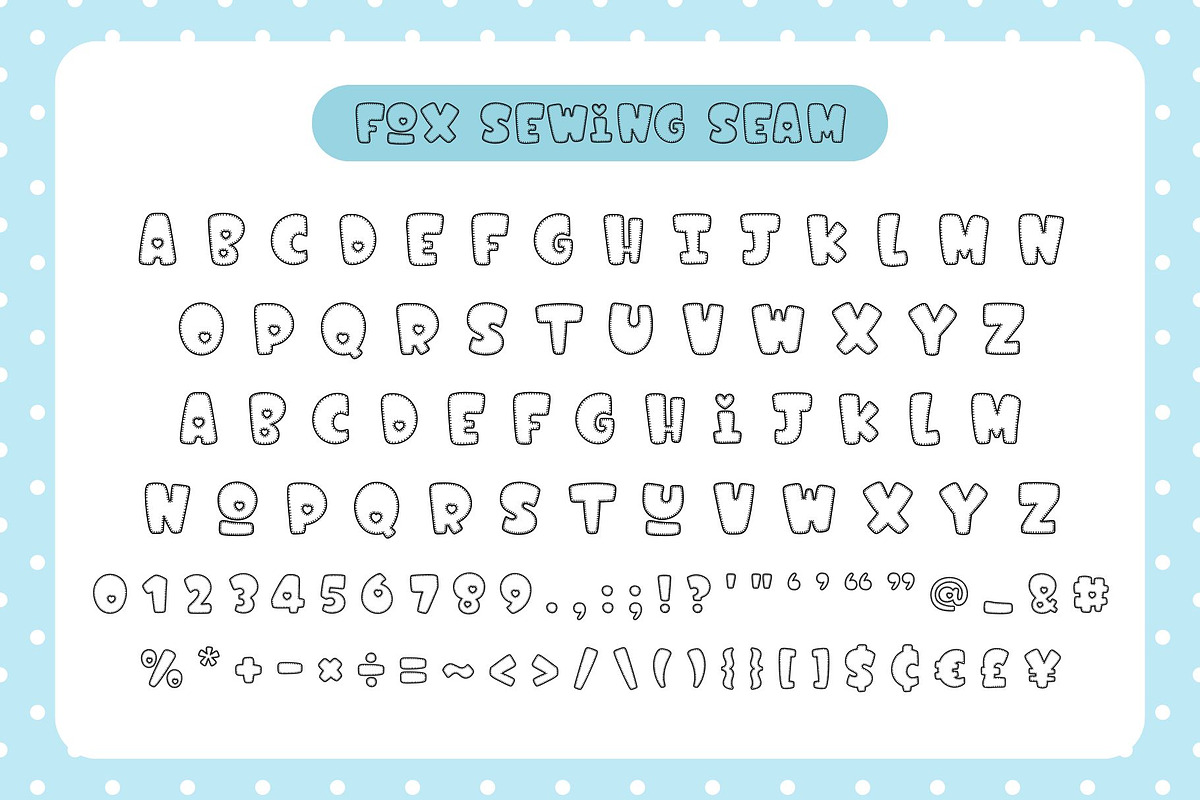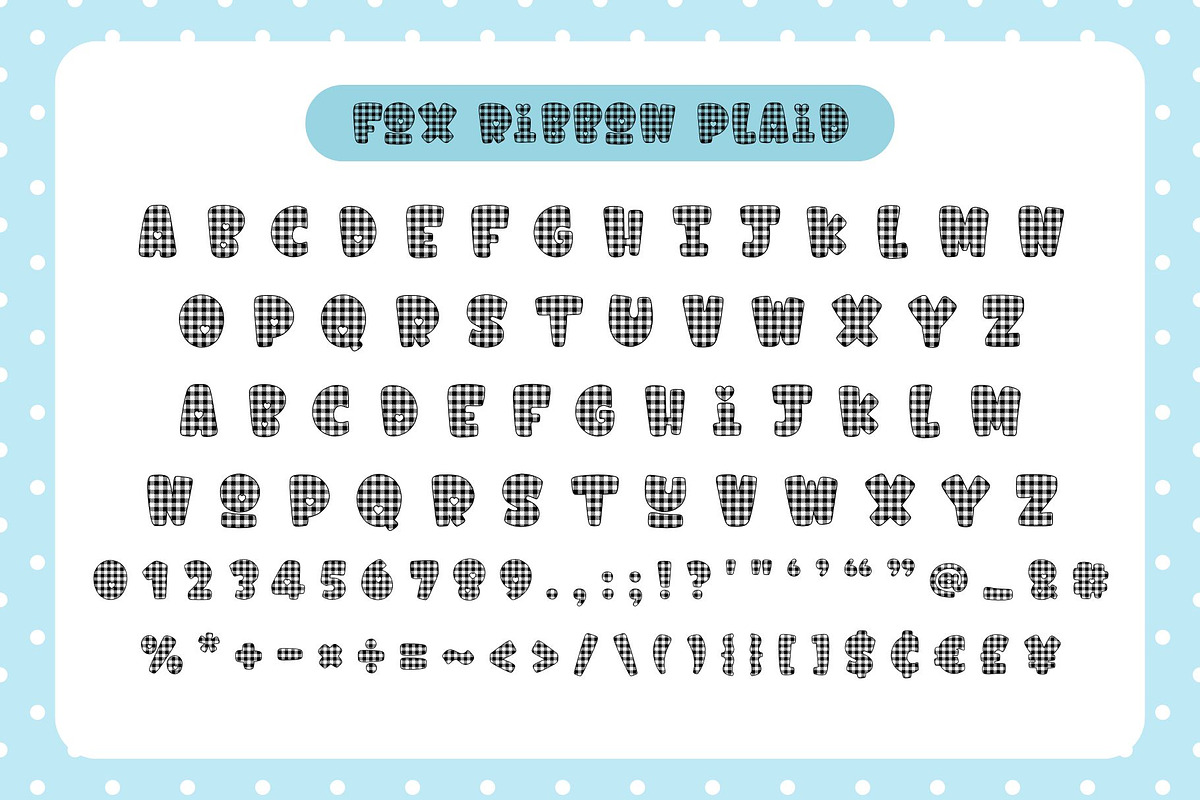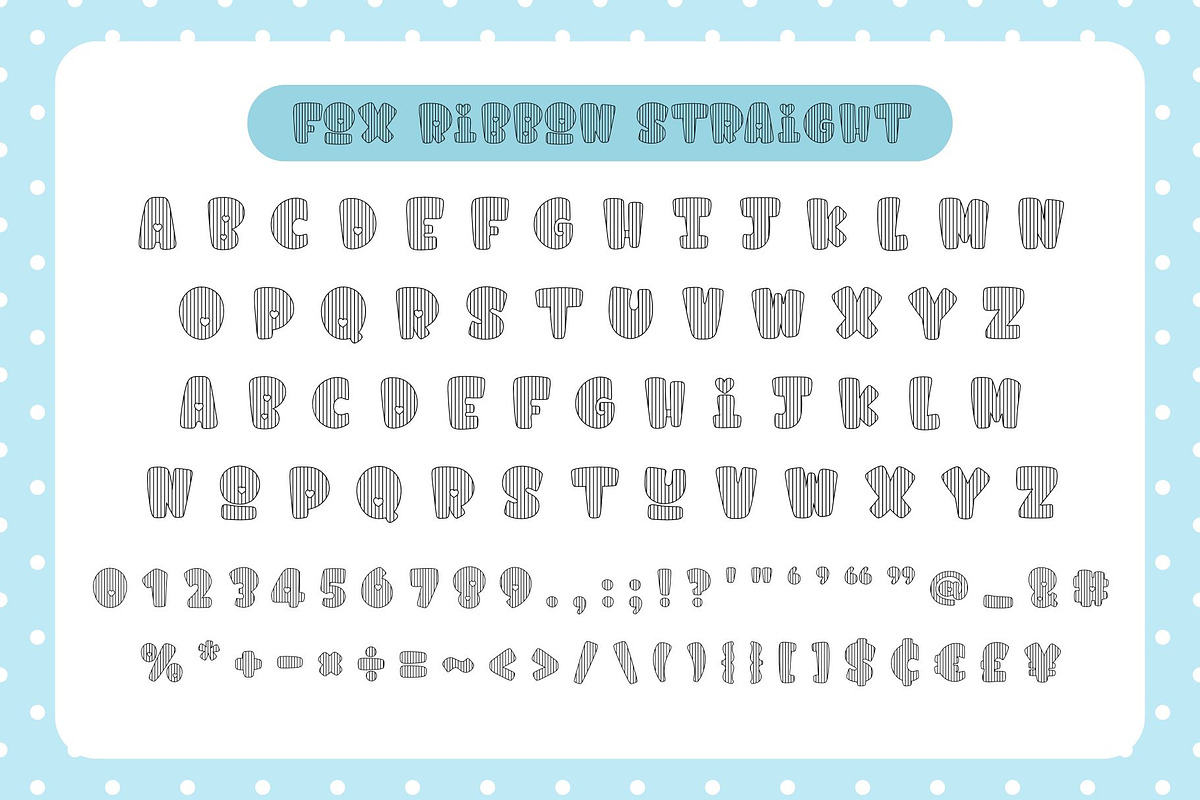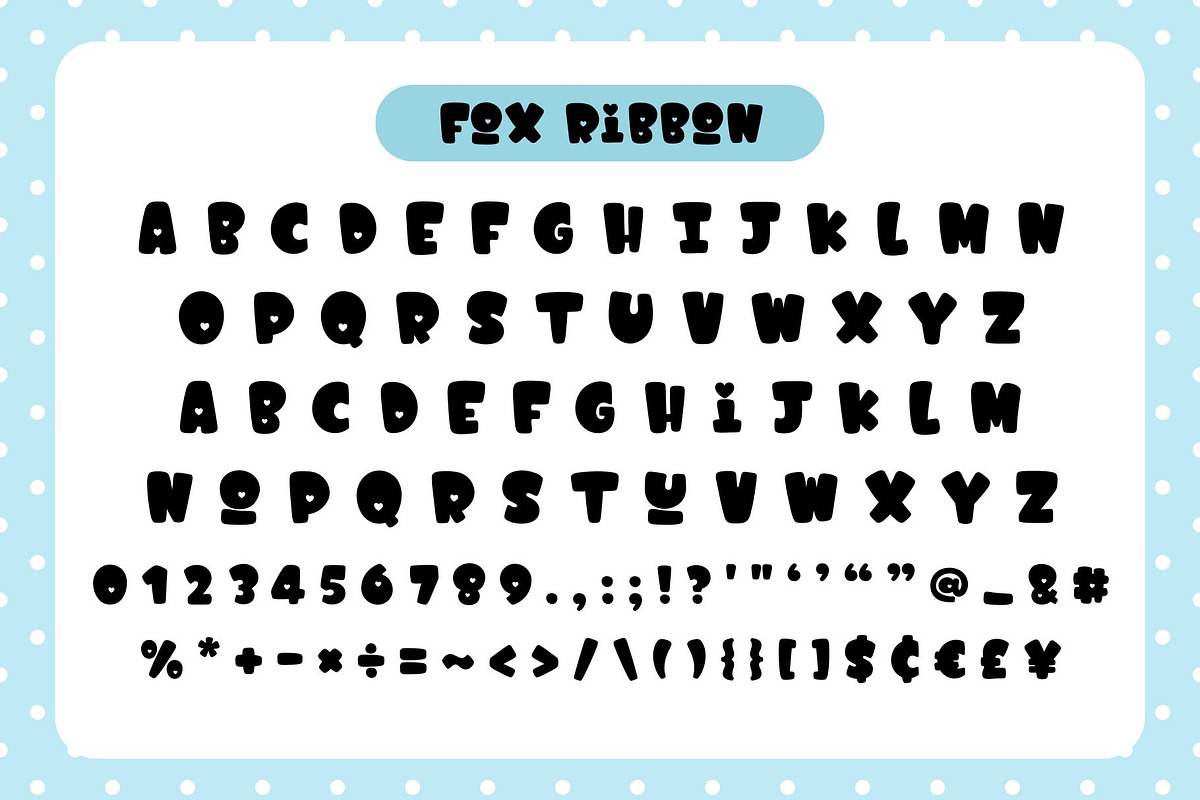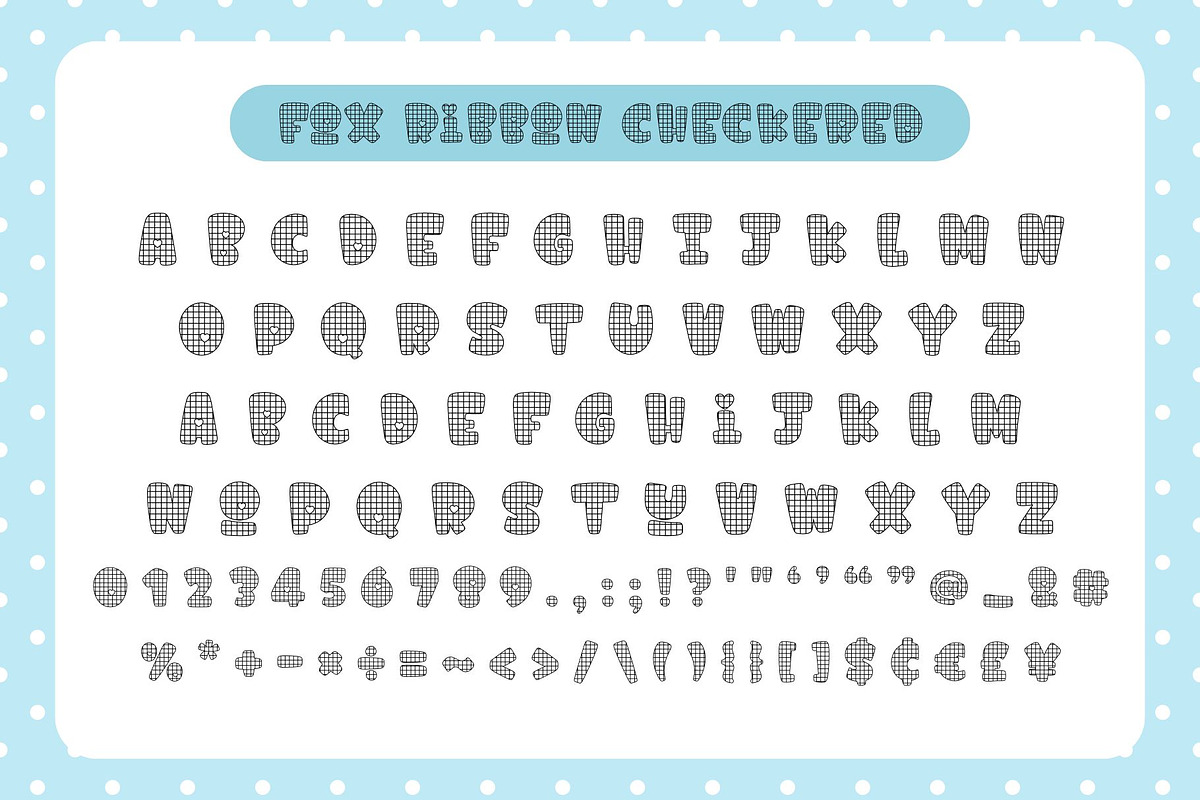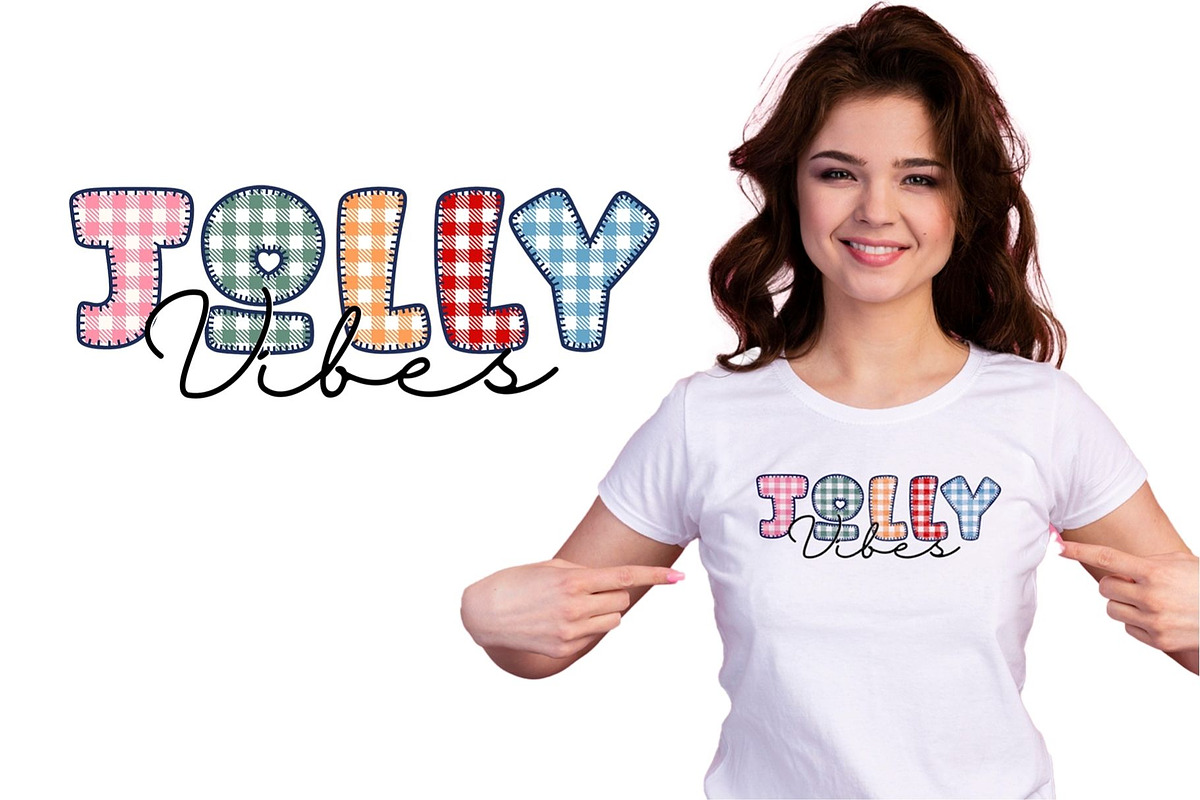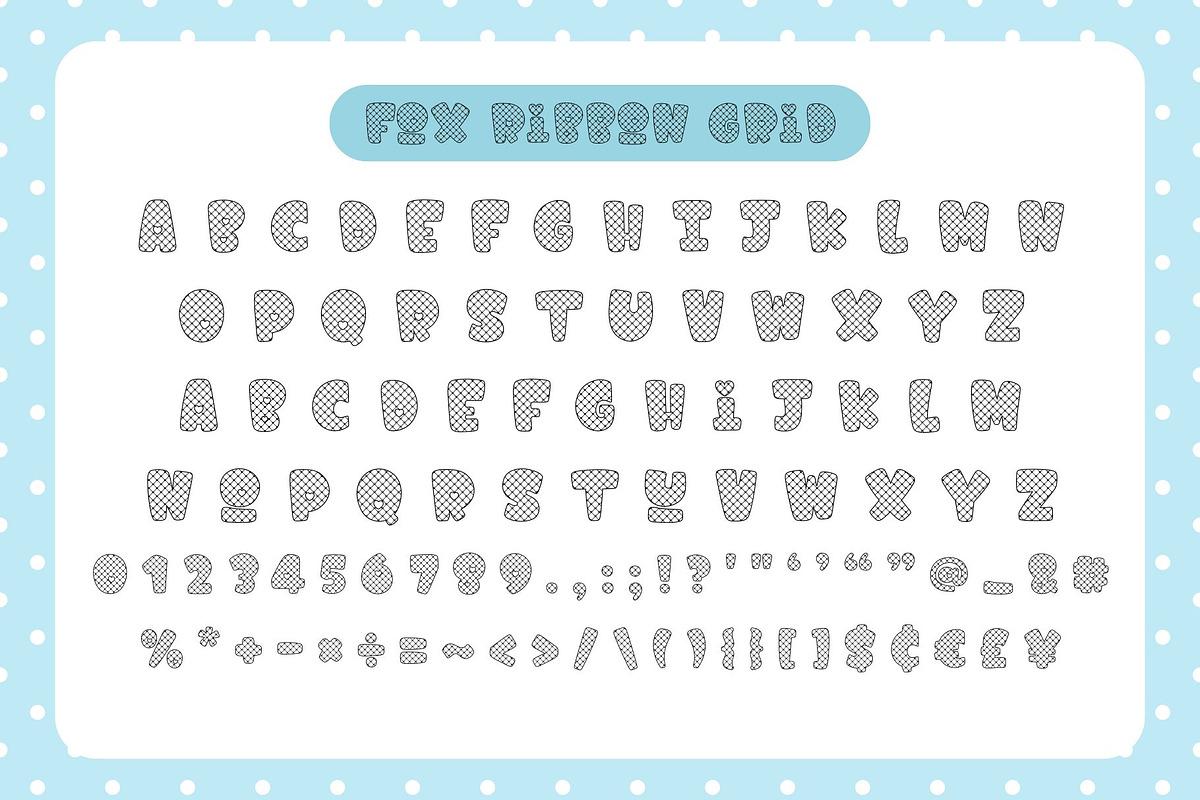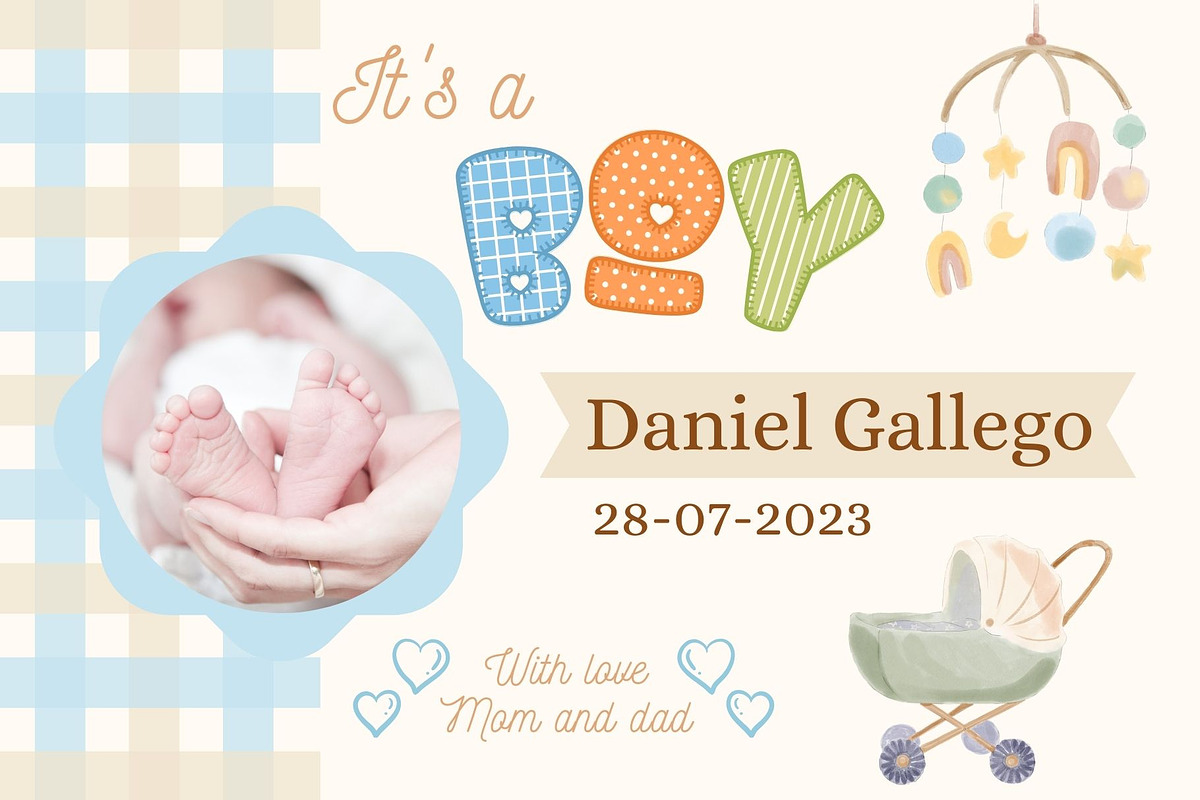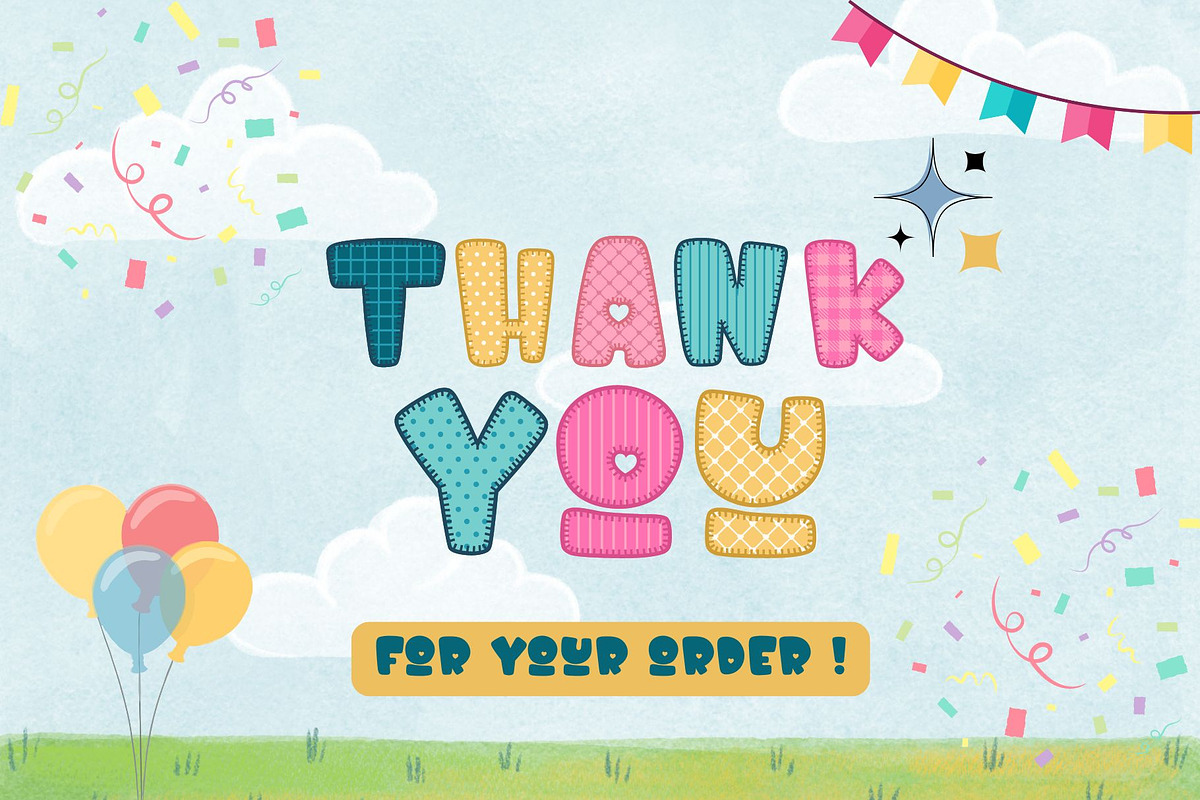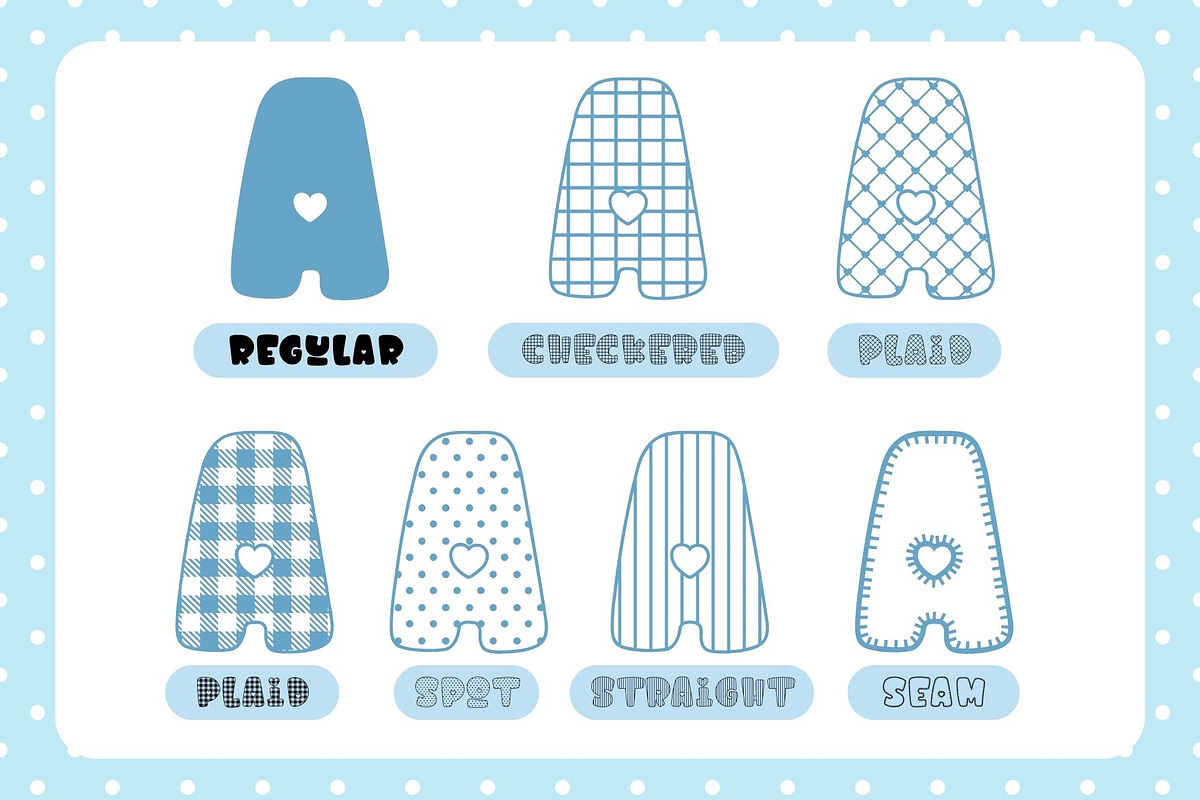
Fox Sewing 7 Fonts Style
Fox Sewing is a charming and versatile font family with 7 unique styles, perfect for adding a playful touch to your designs. Whether you're working on children's projects, holiday-themed creations, or anything that needs a fun and cute aesthetic, this font will fit right in. Use it to craft stunning invitations, lovely stationery, engaging social media posts, or heartwarming greeting cards. Add Fox Sewing to your font collection and start creating eye-catching.